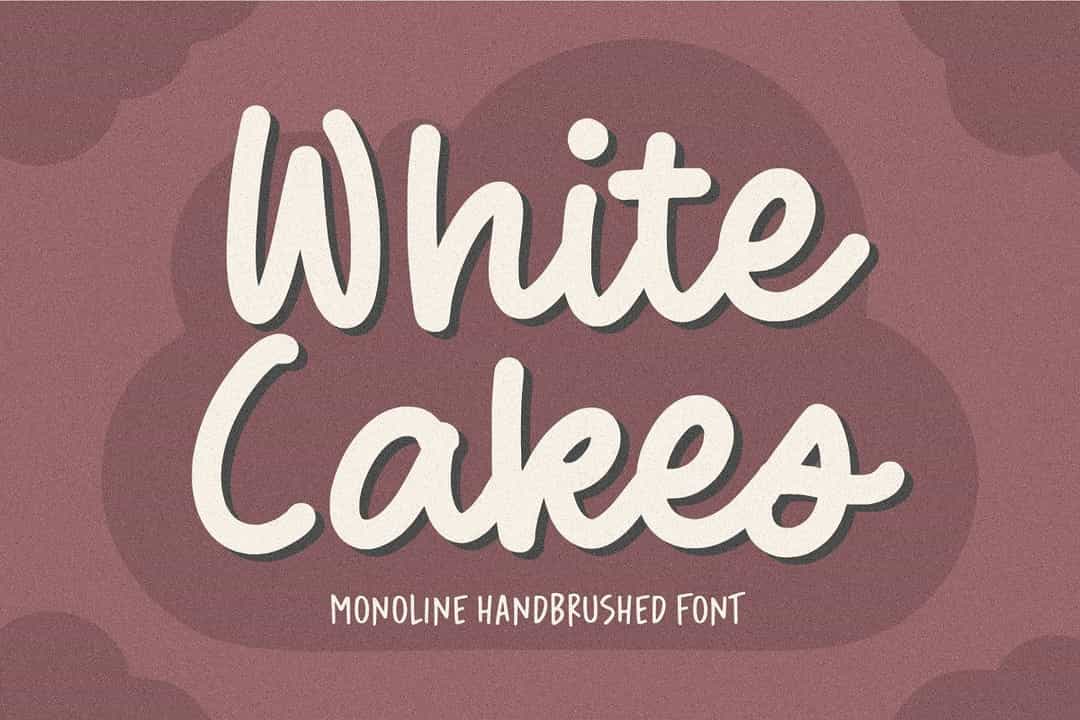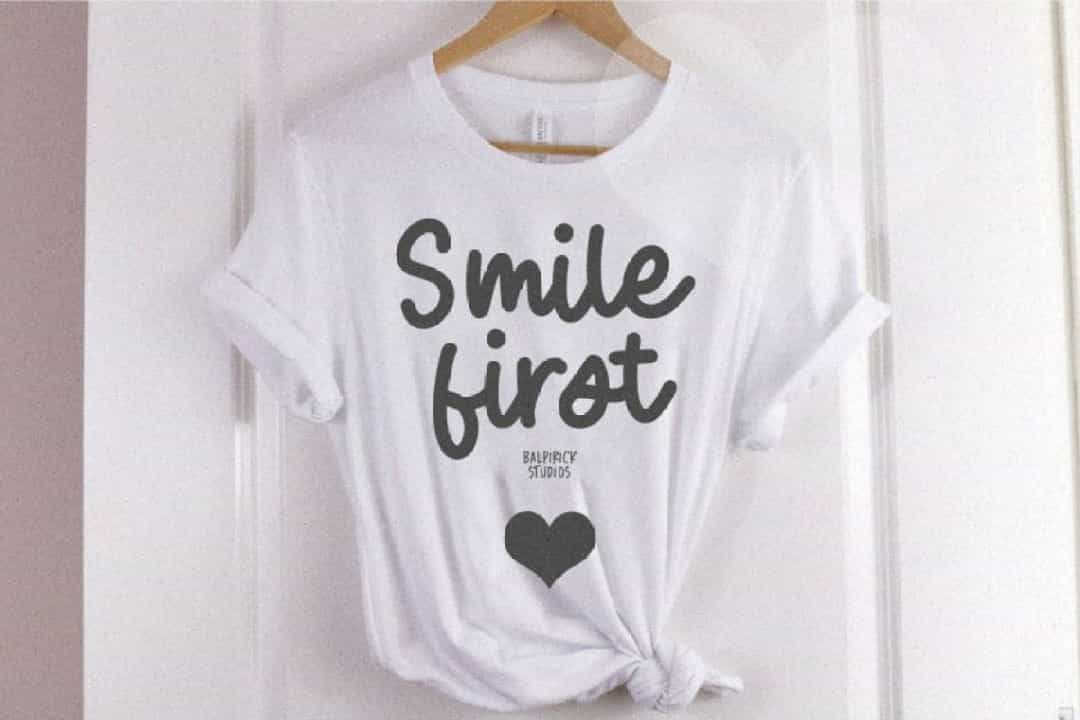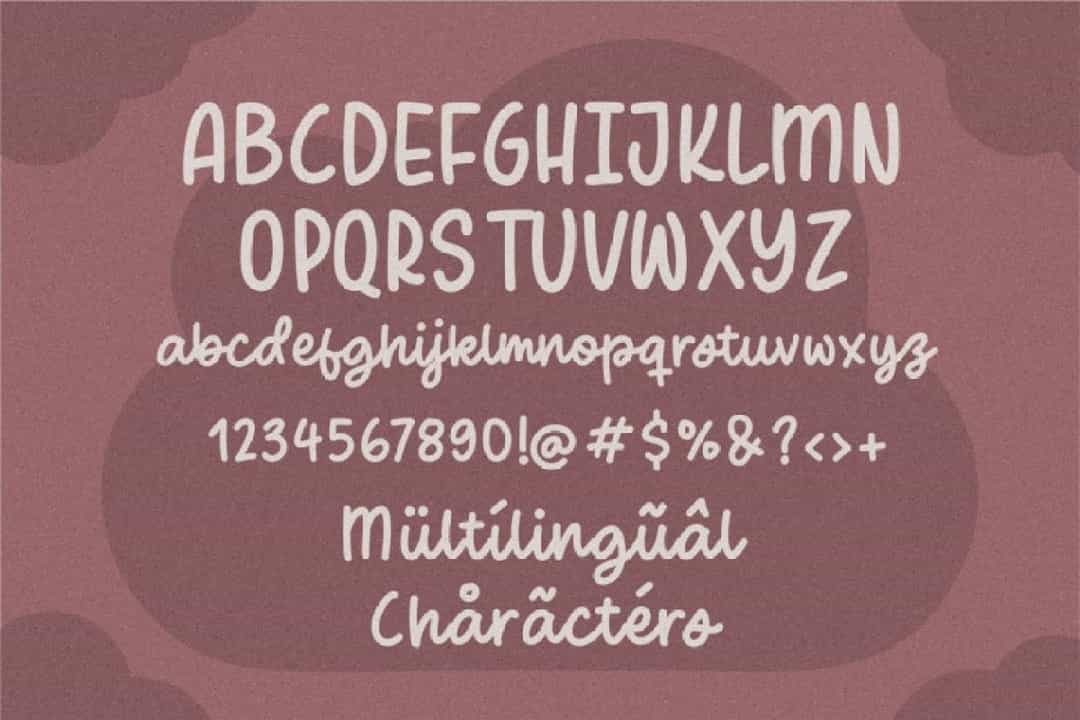
White Cakes is an elegant monoline handbrushed font perfect for all kinds of design work, thanks to its smooth lines and subtle elegance. Ideal for those who appreciate traditional elegance.